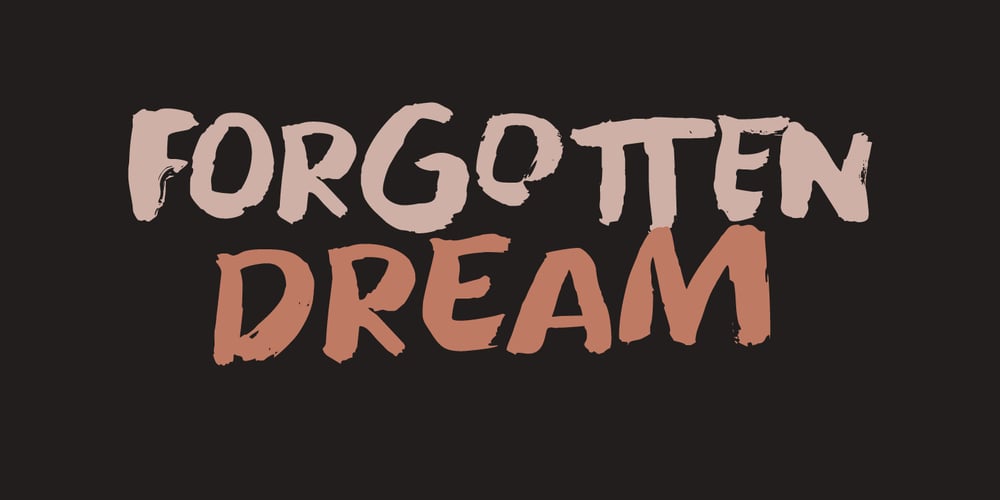
Forgotten Dream Font Family was designed by David Kerkhoff and published by Hanoded. Forgotten Dream contains 2 styles and family package options. I had a really weird dream the other night, but when I woke up, I had forgotten it. I had the feeling it was about something important, but I cannot, for the life of me, recall what I dreamt about!Forgotten Dream is a horror brush font, which I made with a brushy brush and Chinese ink. It looks like something right out of a nightmare, but you can also use it for something important. Like a ‘keep your distance’ poster, or a sign about the importance of washing ones hands.But then again, if you play in a death metal band, then Forgotten Dream font could be exactly what you need for your album cover!